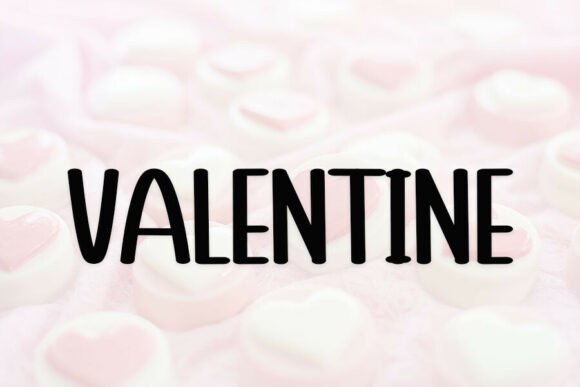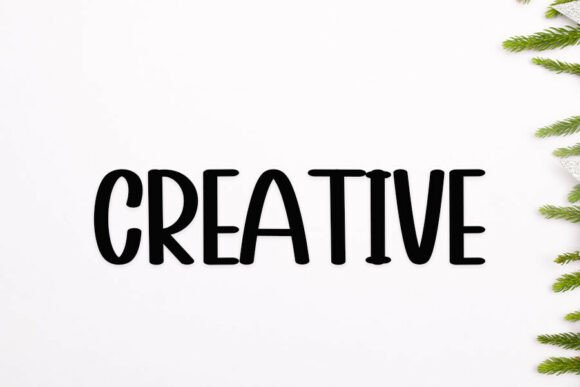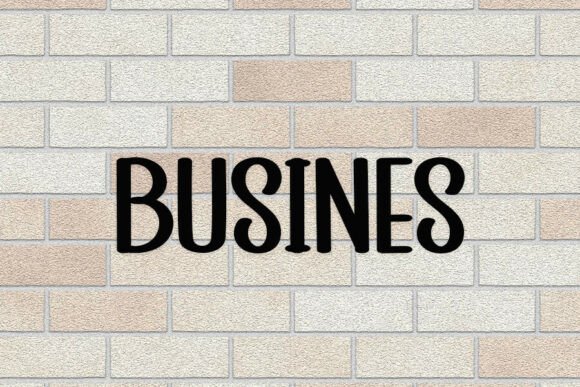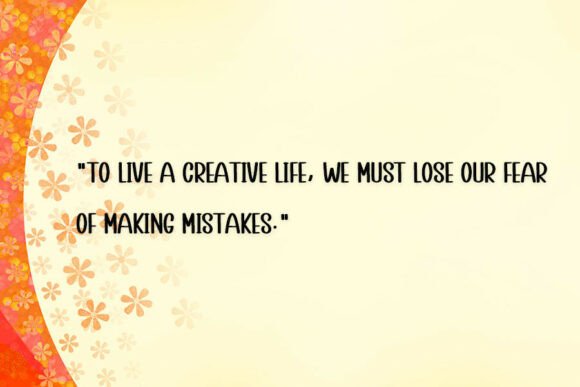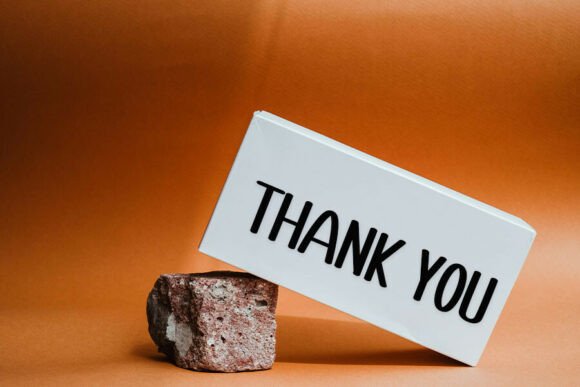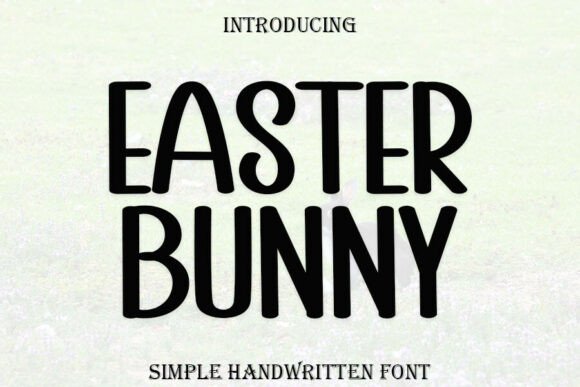
Easter Bunny Font: A Fresh and Friendly Display Font for Springtime Designs
Are you looking for a font that captures the spirit of Easter and springtime? Look no further than the Easter Bunny font, a tall and clean display font that’s perfect for seasonal branding, children’s events, and playful designs. In this article, we’ll dive into the features and benefits of this lovely font, and explore how you can use it to create engaging and festive designs.
What is Easter Bunny Font?
Easter Bunny font is a display font that boasts a unique and refreshing design. Its vertically elongated letterforms, consistent monolinear weight, and slightly rounded terminals create a friendly visual rhythm that’s sure to delight. The font’s large x-height and narrow proportions give the text an organized and contemporary flow, making it highly legible while retaining a warm, hand-lettered feel.
Key Features of Easter Bunny Font
- Vertically elongated letterforms: The font’s tall and slender letterforms give it a distinctive and elegant look that’s perfect for headings and titles.
- Consistent monolinear weight: The font’s consistent weight creates a sense of cohesion and harmony, making it easy to read and visually appealing.
- Slightly rounded terminals: The font’s rounded terminals add a touch of warmth and friendliness, making it perfect for designs that require a playful and approachable feel.
- Large x-height: The font’s large x-height makes it highly legible, even at smaller sizes.
- Narrow proportions: The font’s narrow proportions create a sense of elegance and sophistication, making it perfect for designs that require a bit of refinement.
Use Cases for Easter Bunny Font
Easter Bunny font is an incredibly versatile font that can be used for a wide range of design projects. Here are some ideas to get you started:
- Seasonal spring branding: Use Easter Bunny font to create fresh and festive branding for your business or product.
- Children’s event stationery: The font’s playful and friendly design makes it perfect for children’s event stationery, such as invitations, programs, and activity sheets.
- Playful product packaging: Add a touch of whimsy and fun to your product packaging with Easter Bunny font.
- Cheerful social media headers: Use Easter Bunny font to create eye-catching and engaging social media headers that will help your content stand out.
Why Choose Easter Bunny Font?
So why choose Easter Bunny font for your next design project? Here are just a few reasons:
- Unique and distinctive design: Easter Bunny font has a unique and distinctive design that’s sure to grab attention.
- Highly legible: The font’s large x-height and clear letterforms make it highly legible, even at smaller sizes.
- Versatile: Easter Bunny font can be used for a wide range of design projects, from branding and packaging to social media and stationery.
Easter Bunny font is a fresh and friendly display font that’s perfect for springtime designs. Its unique and distinctive design, combined with its high legibility and versatility, make it an excellent choice for designers and crafters. Whether you’re looking to create seasonal branding, children’s event stationery, playful product packaging, or cheerful social media headers, Easter Bunny font is sure to delight. So why not give it a try and see how it can elevate your next design project?